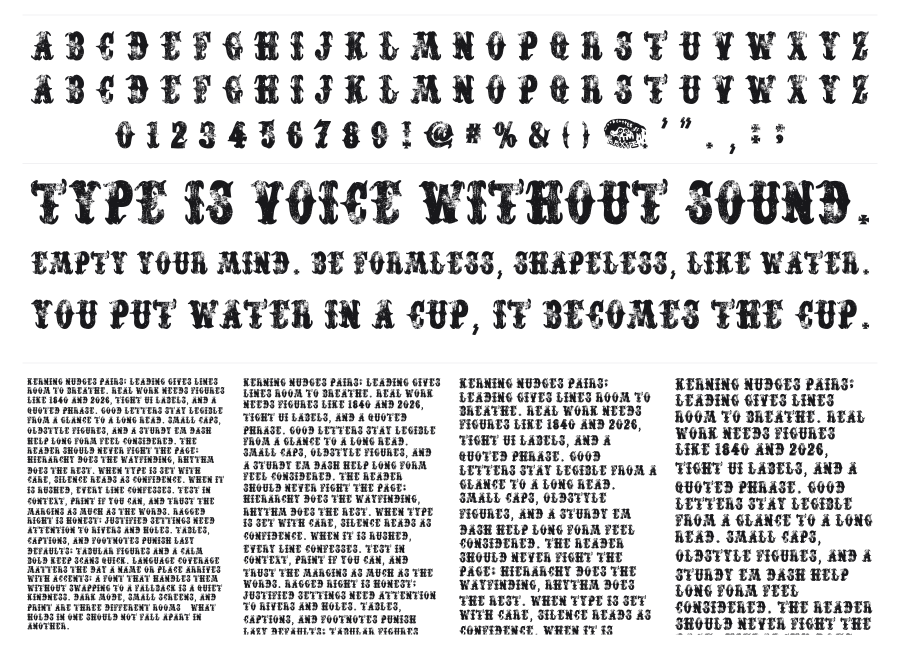
Western Dead
Western Dead is a rough, weathered display face from Woodcutter that looks like it was pulled off a sun-bleached wanted poster. The bold letterforms carry heavy distressing and gritty texture, giving each character the feel of old frontier wood-block printing left to rot in the desert. Built for headlines, posters, and anything that needs that dusty, lawless saloon-era energy.